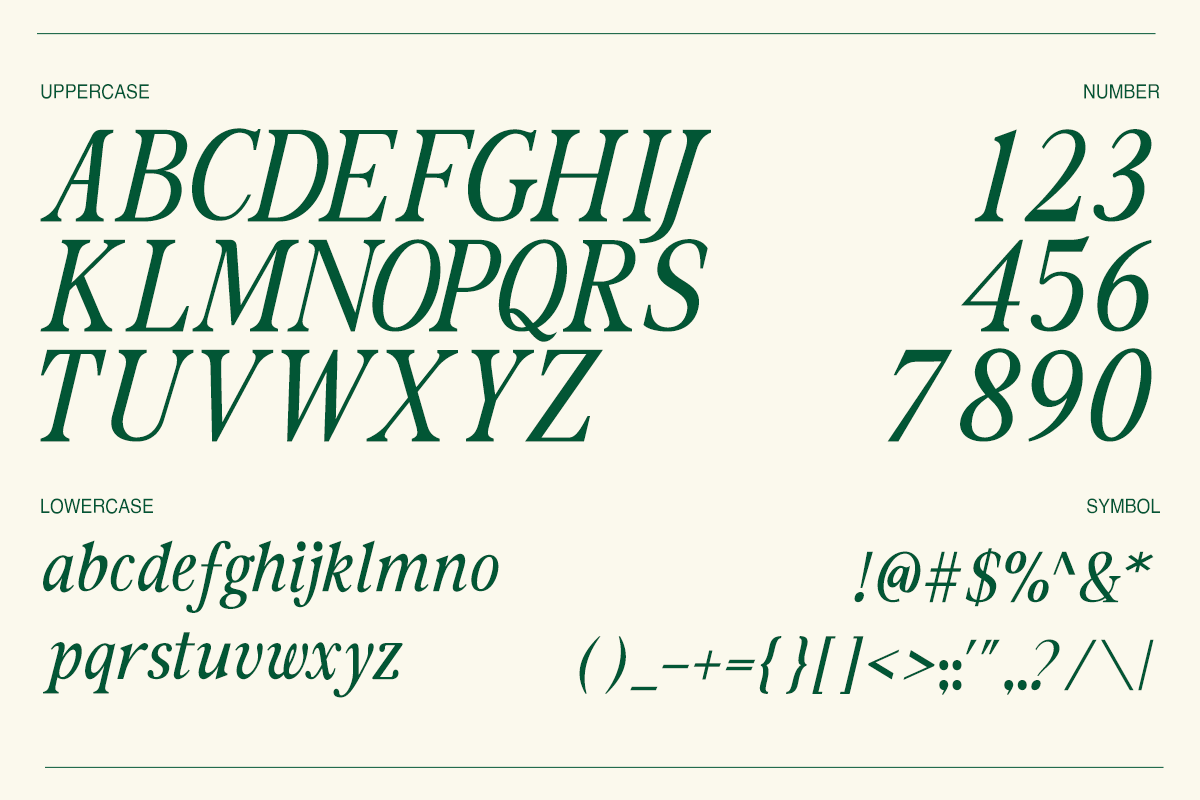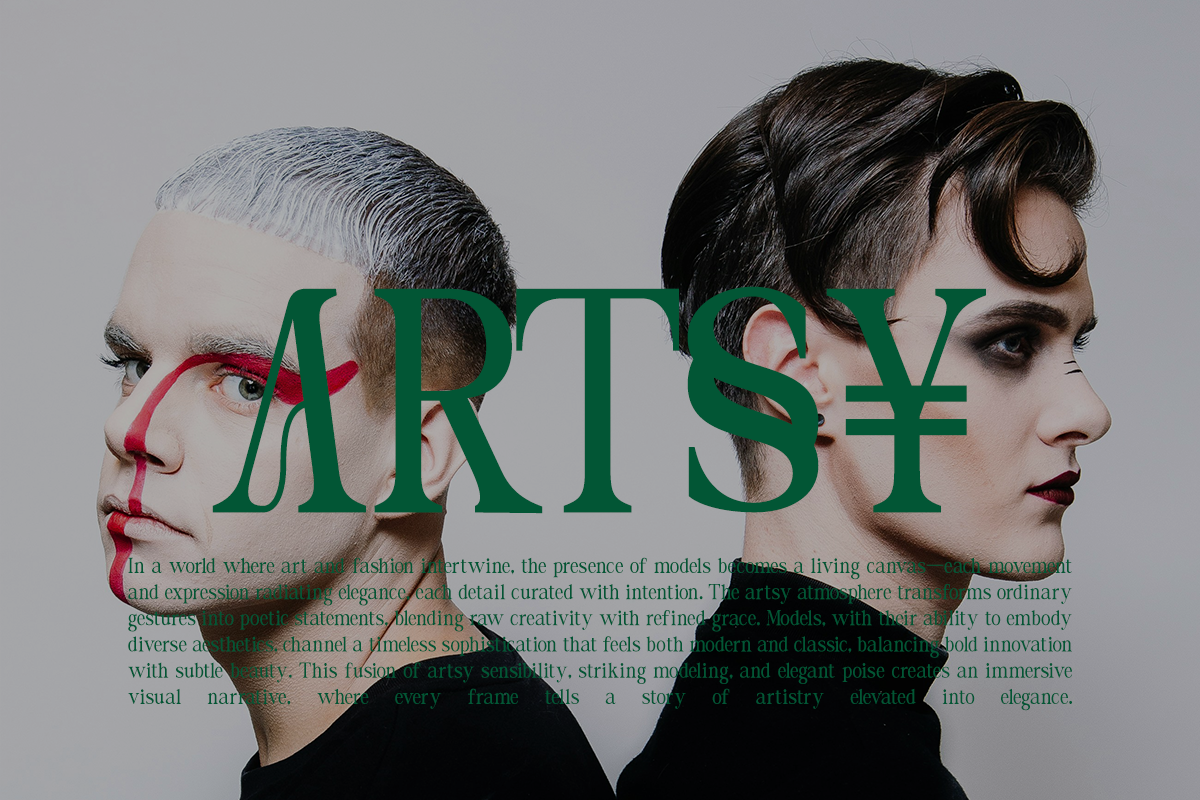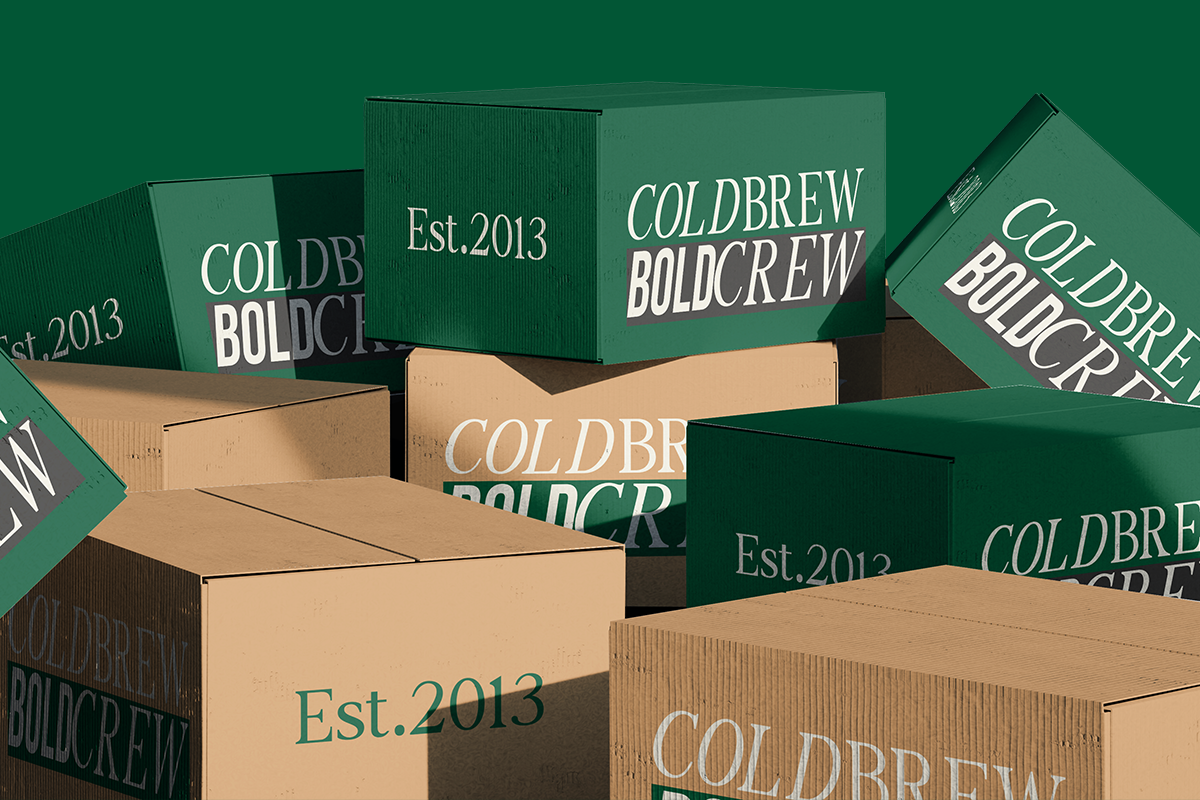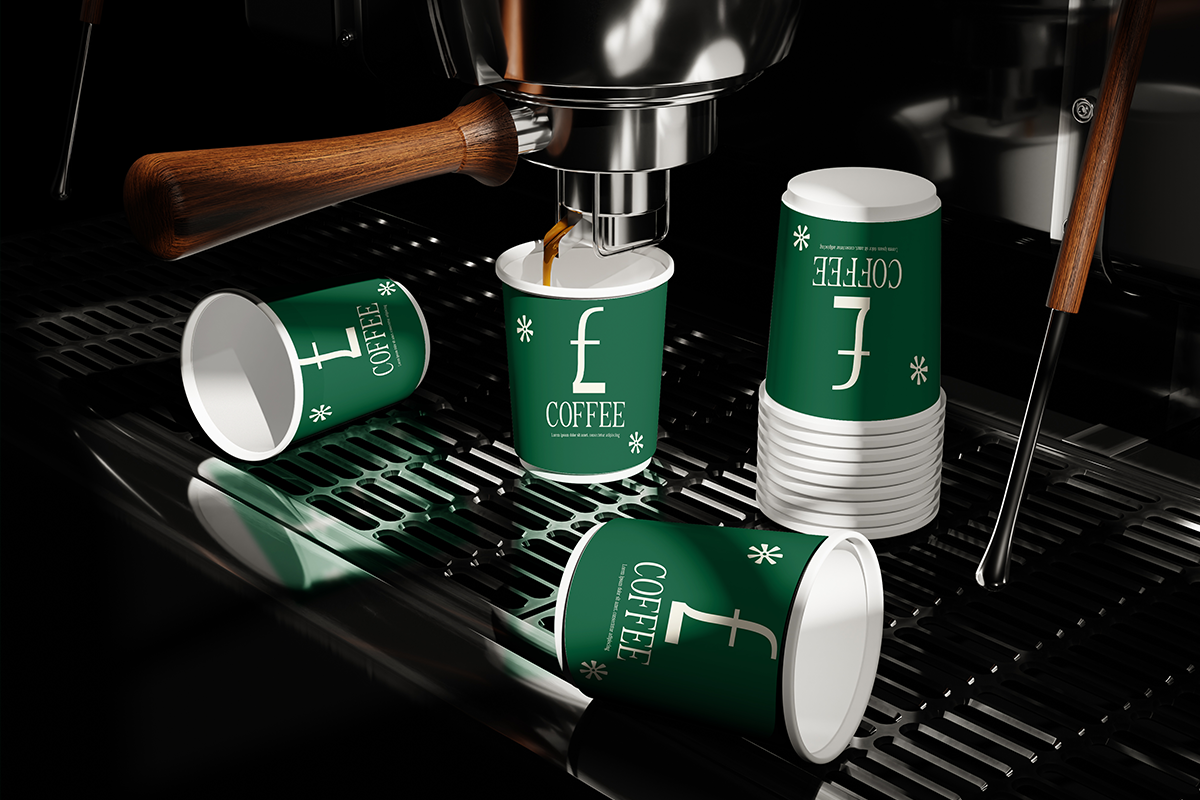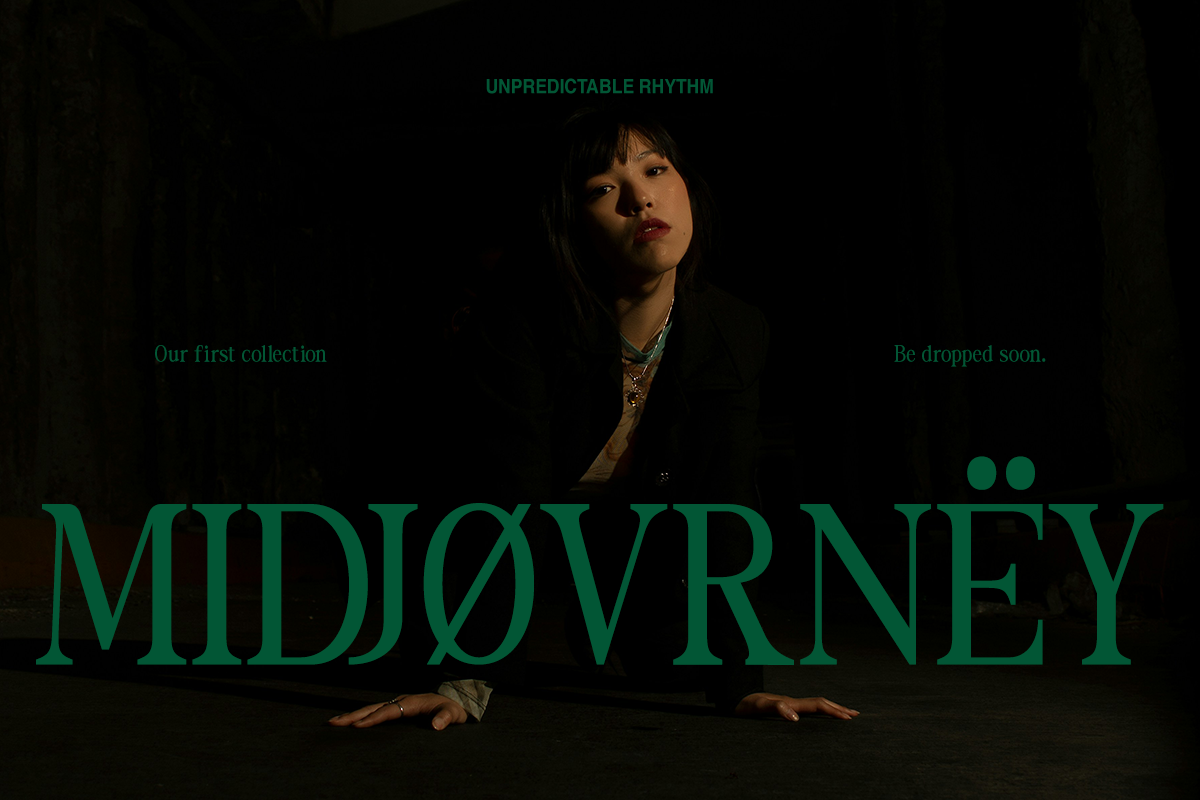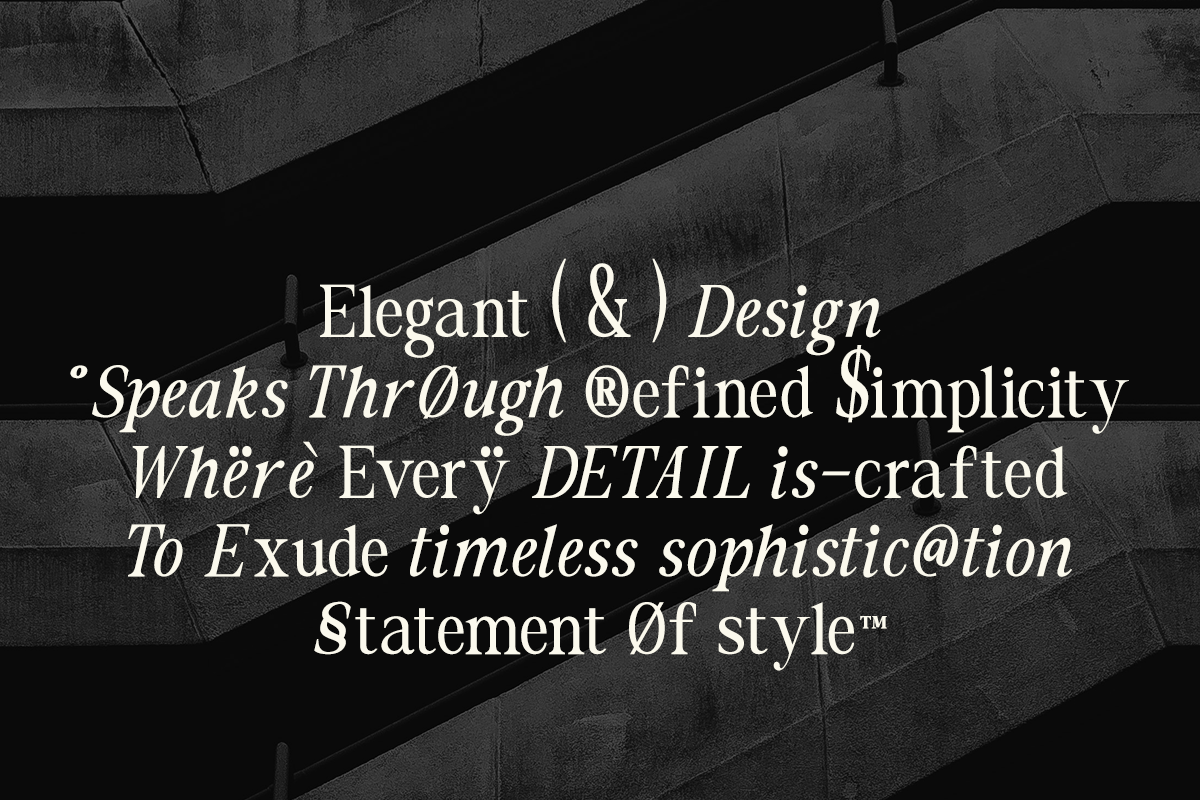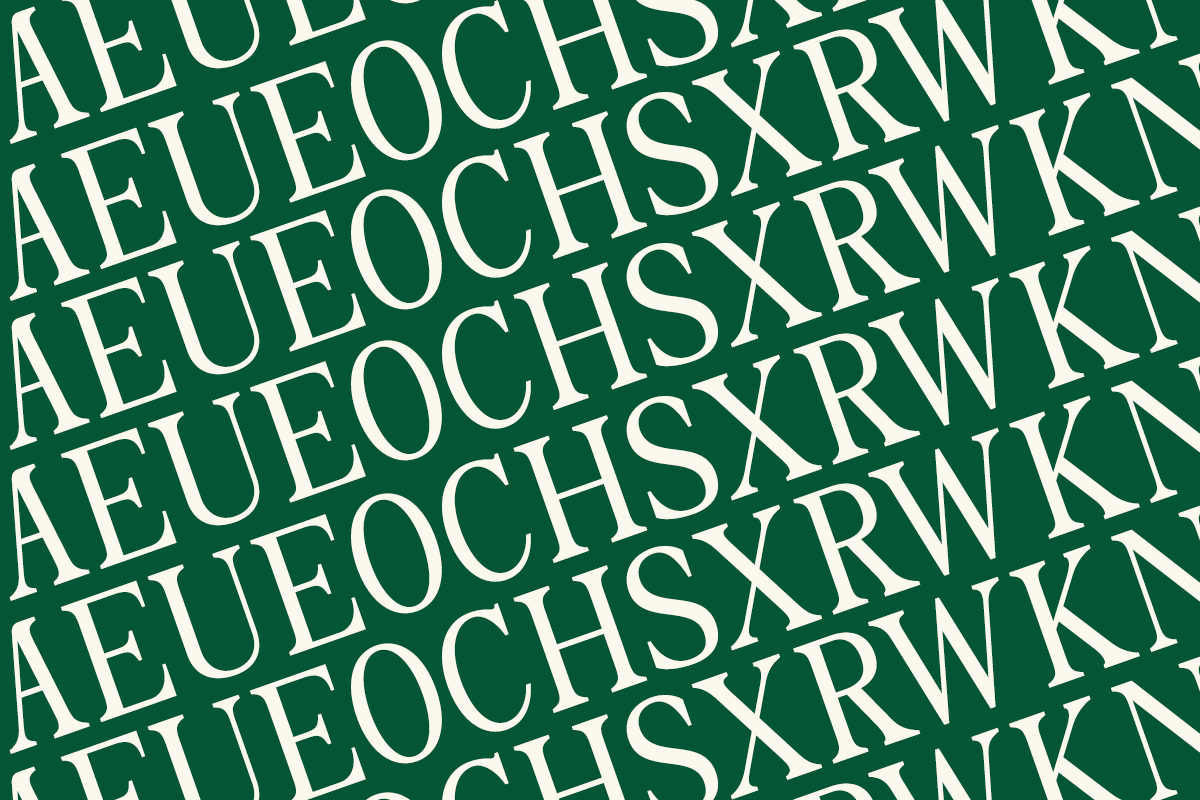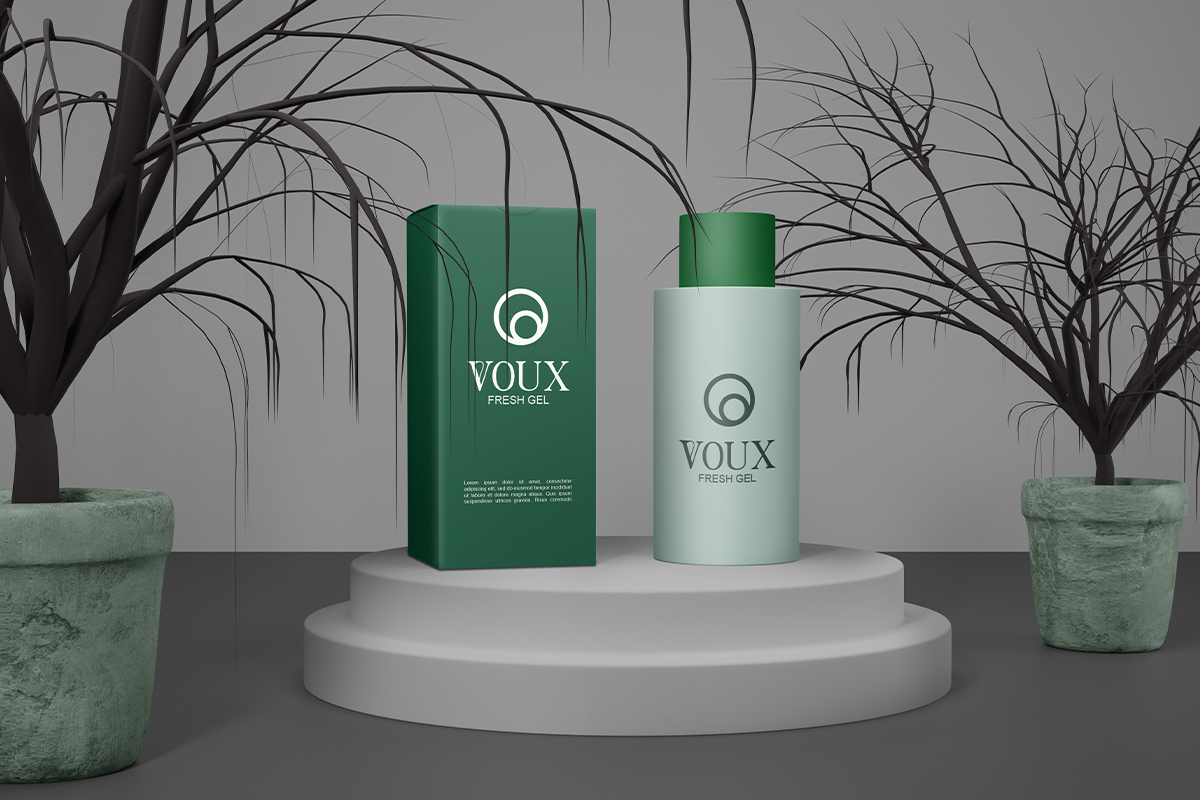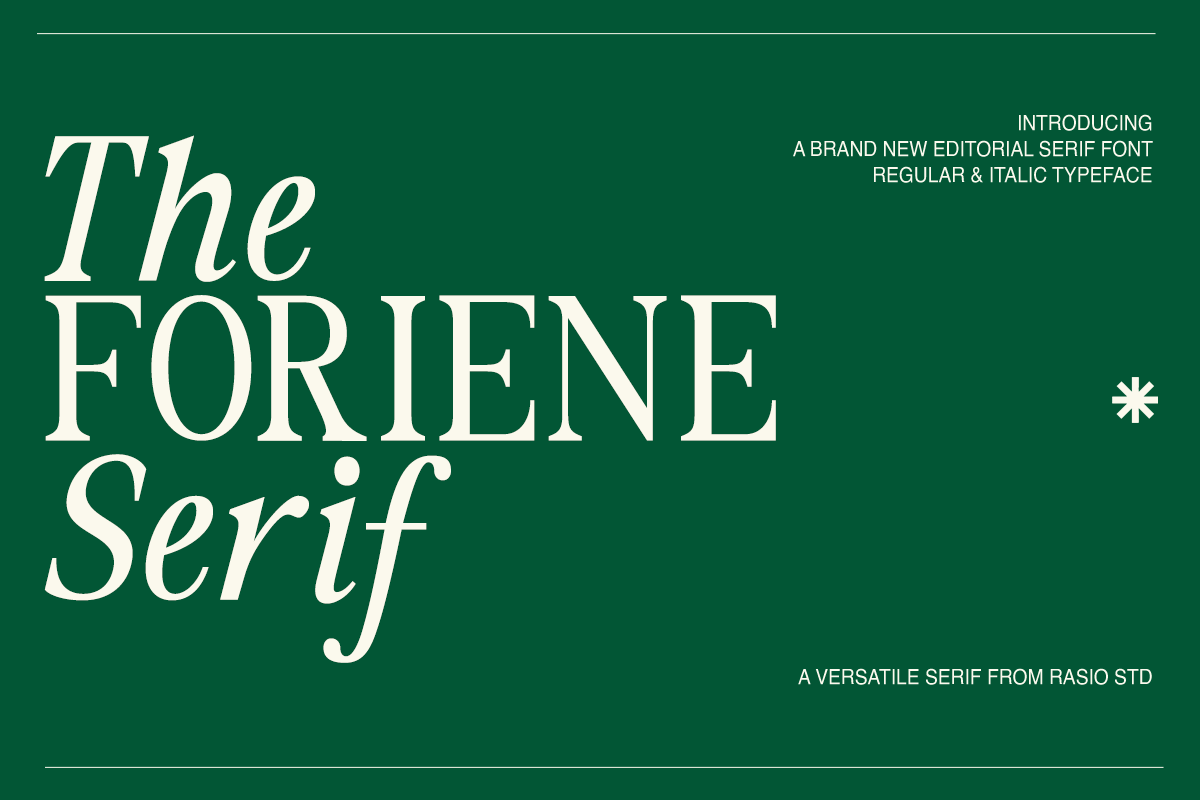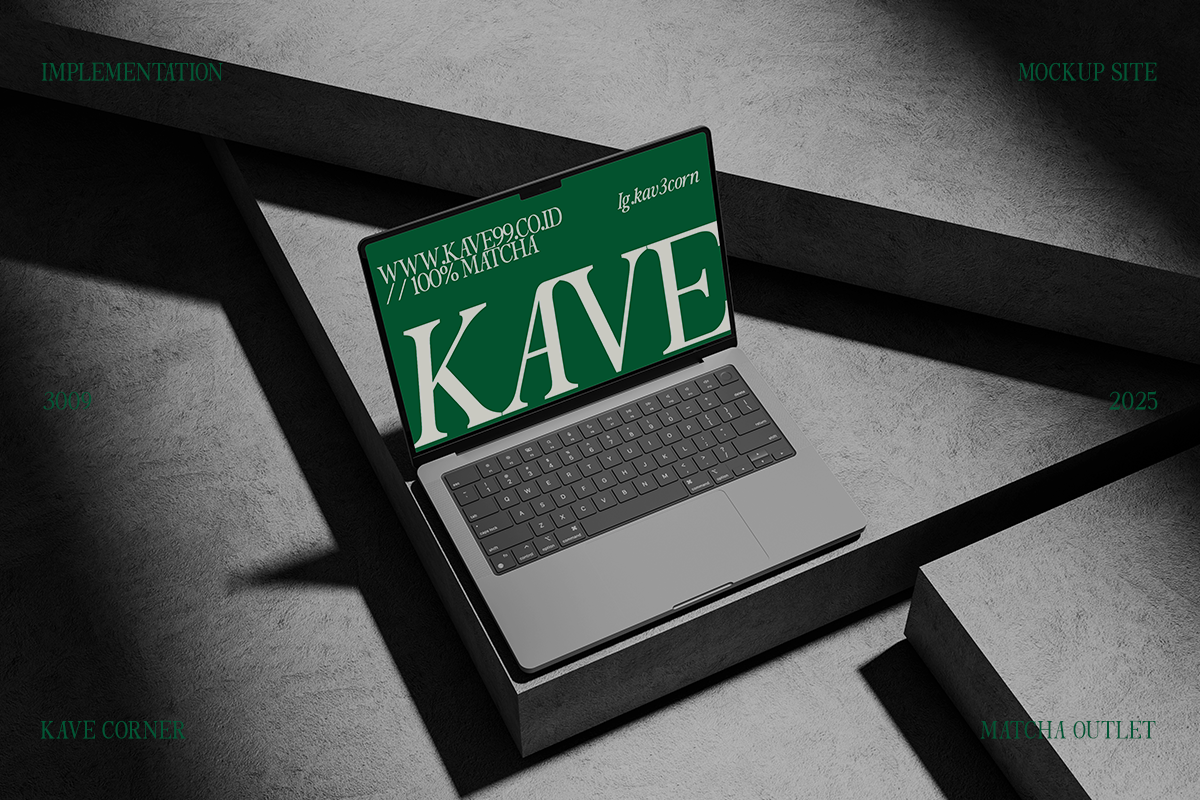
The Foriene Serif Font
The Foriene Elegant Serif Font is a refined typeface that blends sophistication with a timeless editorial spirit. Featuring high-contrast strokes, sharp yet graceful serifs, and balanced proportions, this font exudes elegance and professionalism. The italic variant enhances its expressive style, making it perfect for branding, magazines, fashion layouts, and luxurious visual identities. Designed with attention to detail, The Foriene captures a sense of confidence and modern refinement in every character
Relevance and Use Cases is perfect for editorial layouts, magazine headlines, fashion branding, luxury packaging, creative posters, modern logos, and sophisticated visual projects that emphasize elegance and timeless style.
- Contemporary editorial serif design with refined, high-contrast strokes
- Elegant letterforms with sharp serifs and graceful proportions
- Subtle calligraphic influence adding sophistication and visual rhythm
- Balanced italic style with smooth flow and expressive character shapes
- Clean spacing and structured layout optimized for editorial clarity and readability
- Editorial magazines, luxury publications, and book layouts
- Fashion branding, beauty products, and high-end identity systems
- Elegant packaging and premium label design
- Sophisticated logos and refined typography compositions
- Social media visuals with a classic, stylish, and timeless tone
Let your typography speak through refined simplicity with The Foriene Serif